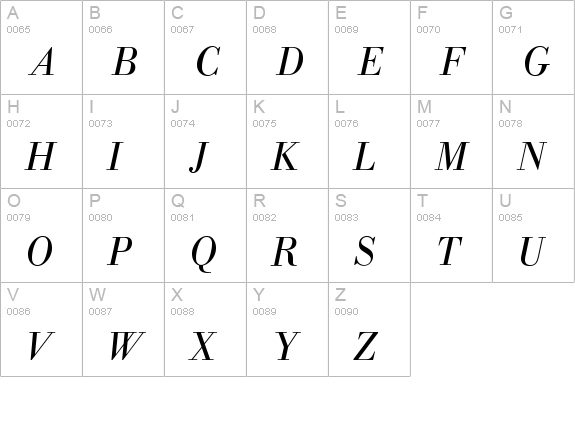
Bodoni Berthold BQ Light Italic Font Details
Bodoni Berthold BQ Light Italic is a refined, elegant, italic variant in the Bodoni typeface family \xE2\x80\x94 well suited to elegant body text, refined sub-headings, and luxury branding.
Bodoni Berthold BQ Light Italic font is a graceful and elegant typeface that exudes sophistication and modernity. With its slender and slanted design, this font adds a touch of refinement to any project. The delicate curves and precise lines of Bodoni Berthold BQ Light Italic create a sense of fluidity and movement, making it ideal for conveying a sense of elegance and style. This font is perfect for use in fashion magazines, luxury branding, and high-end design projects. Whether you're looking to add a touch of class to your website or create a standout logo, Bodoni Berthold BQ Light Italic is sure to impress. Best of all, this font is available for free download at FontsMarket.com. So go ahead and elevate your designs with the timeless beauty of Bodoni Berthold BQ Light Italic today!